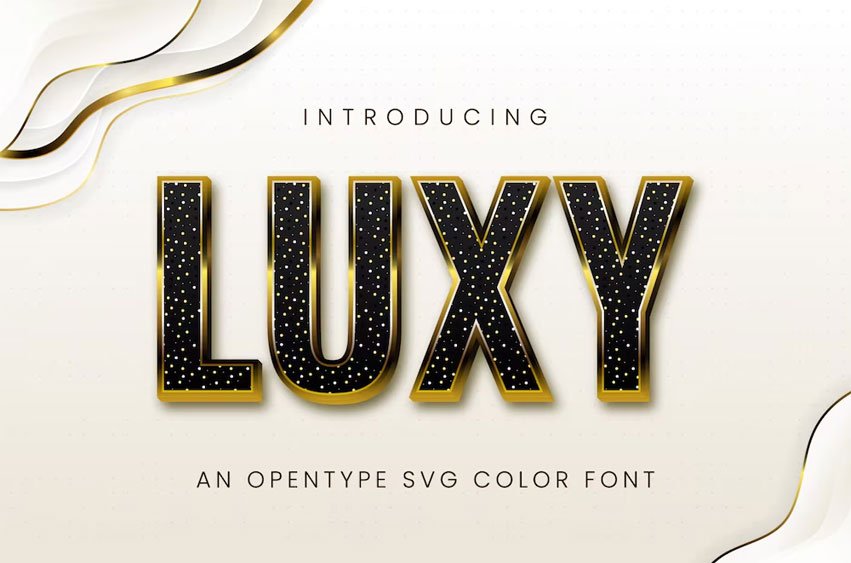
Luxy Font is a glamorous font that exudes bling, shine, and high-end sophistication. Its sleek, fashionable letterforms are designed to capture the essence of luxury and elegance.
Perfect for branding, upscale invitations, or dazzling designs, Luxy adds a radiant touch of opulence, making every project sparkle with style and exclusivity